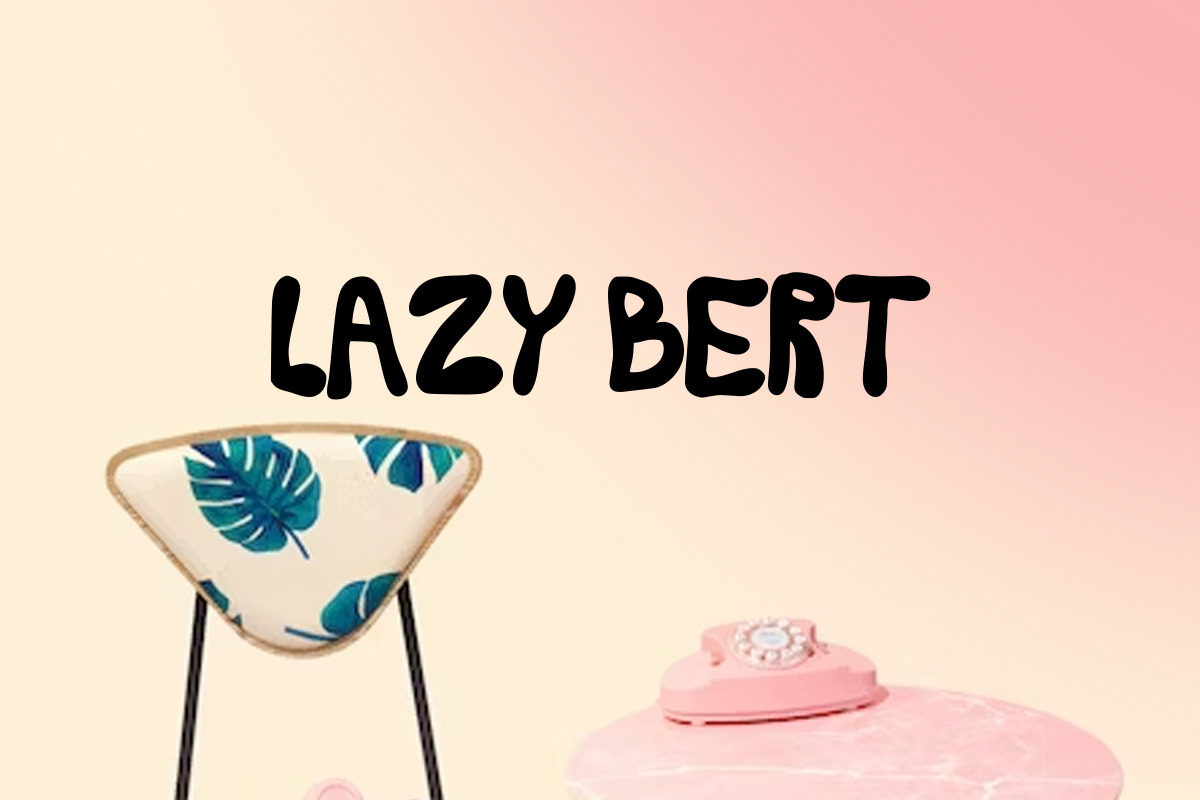
Lazy Bert | Fun Handwritten Font
Funky, eccentric and retro all at the same time, this fun and bubbly font is all yours for £15, and you can use it on all your personal, web and commercial needs.